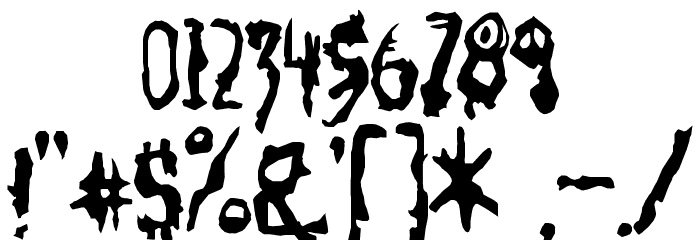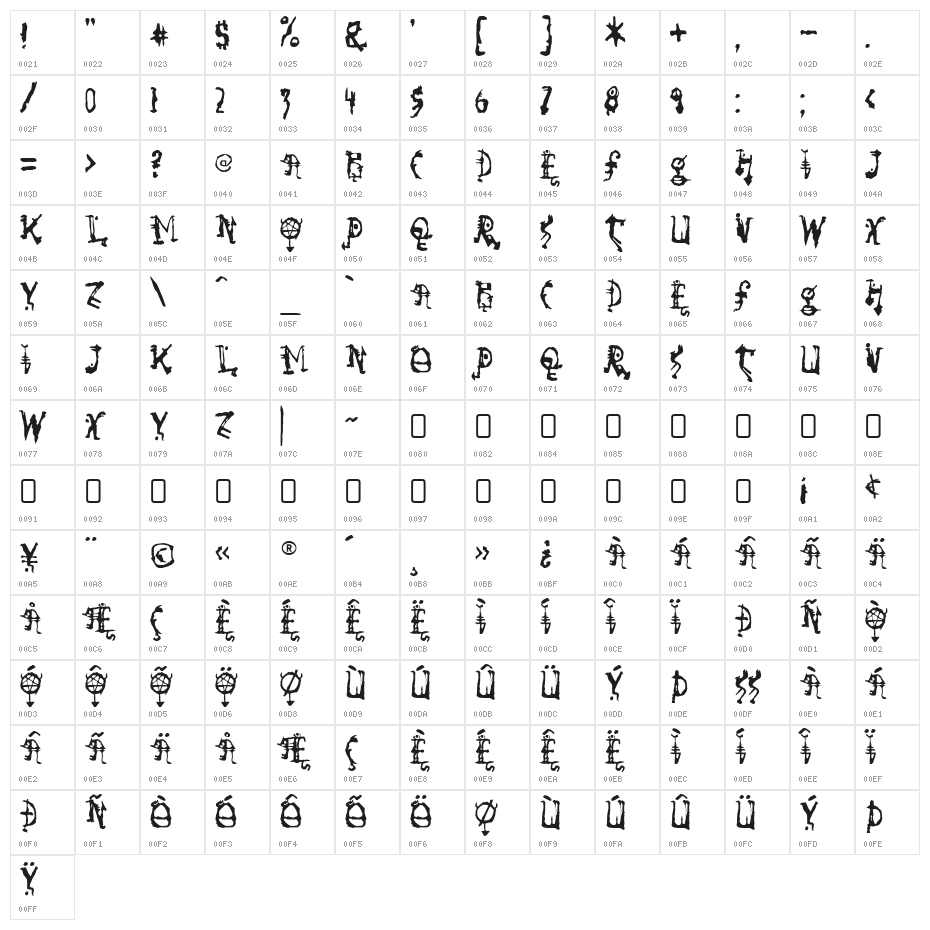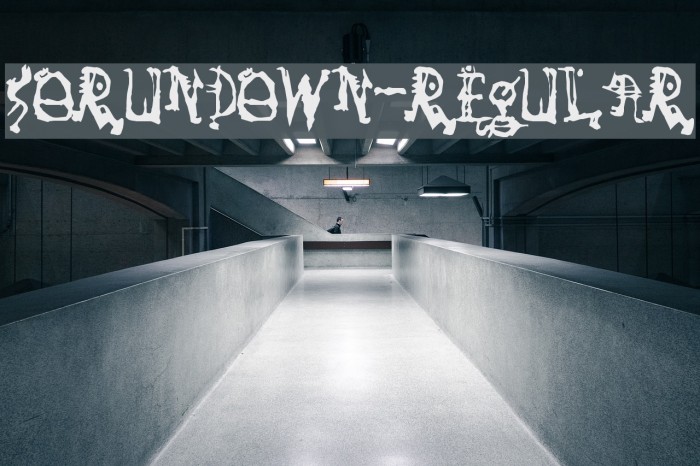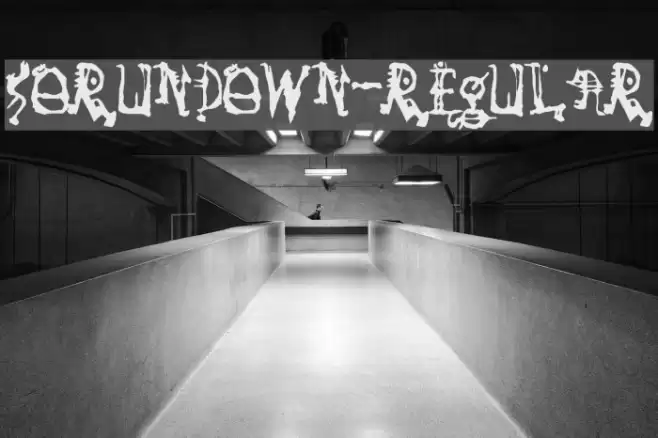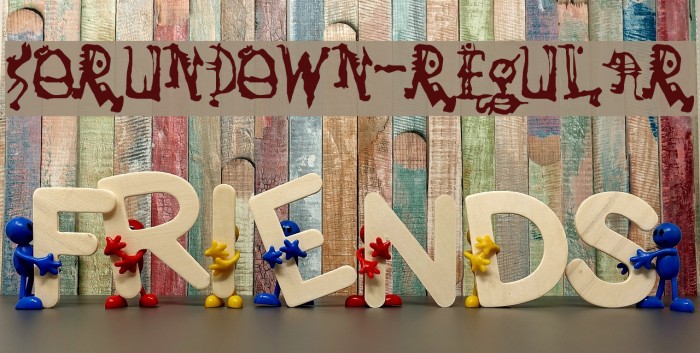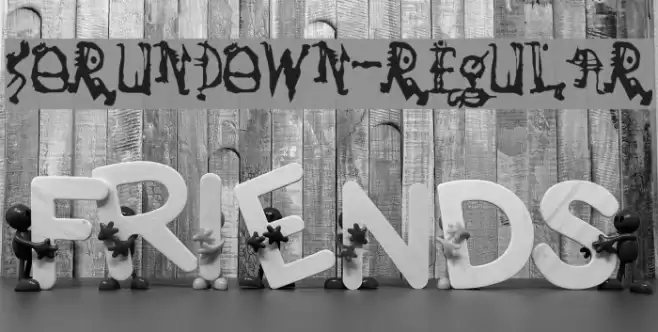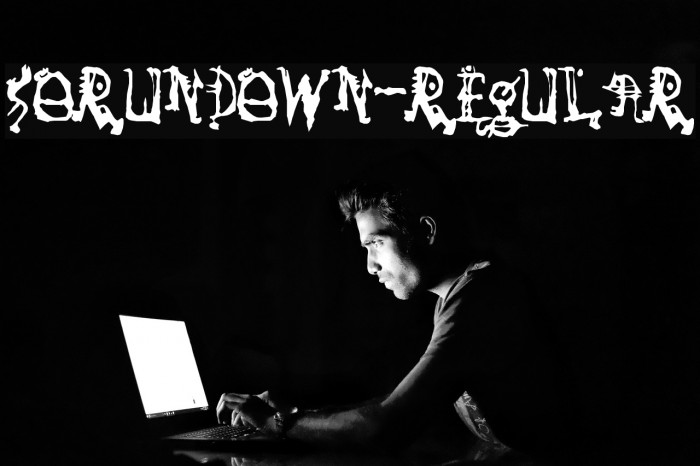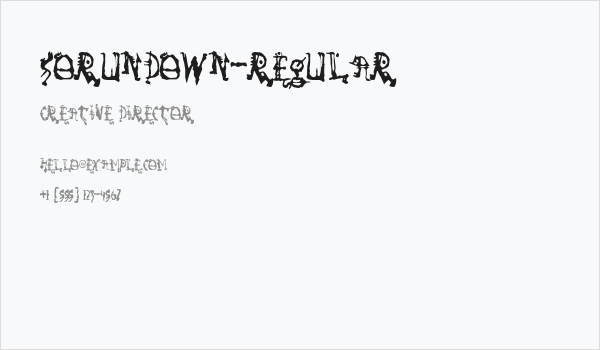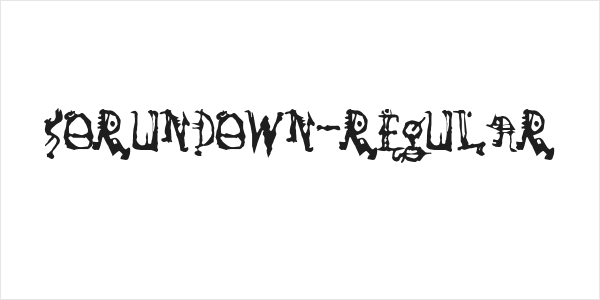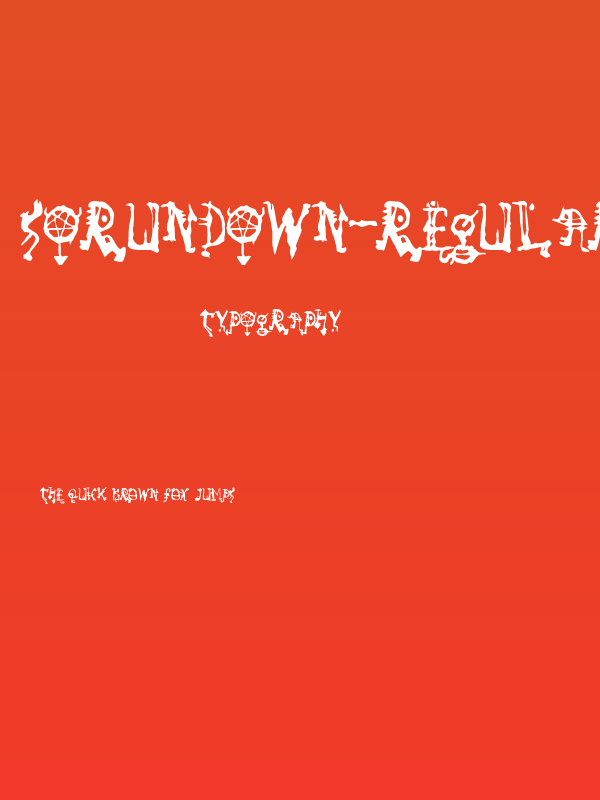
SoRunDown-Regular Font
SoRunDown-Regular Description
This font exhibits a highly decorative and gothic style, characterized by its intricate and elaborate letterforms. Each character is uniquely crafted with sharp edges and ornamental details, giving it a mysterious and somewhat eerie appearance. The uppercase and lowercase letters maintain a consistent theme, with some characters incorporating elements like spikes or web-like patterns. The numbers and special characters follow the same design principles, ensuring a cohesive look throughout. This font's distinct style makes it stand out, ideal for projects that require a bold and unconventional aesthetic.
| Overall Style | Gothic, Decorative |
| Use Case | Headlines, Posters, Logos |
| Proposed Projects | Ideal for horror-themed designs, Halloween invitations, gothic posters, and album covers. |